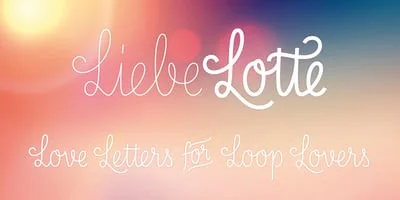
LiebeLotte Font
LiebeLotte Font is perfect for romantic German bakery branding, charming love letter designs, sweet Valentine's Day cards, tender wedding invitations, romantic European travel brochures, cozy cafe signage, heartfelt greeting cards, intimate boutique hotel materials, romantic poetry books, and loving family communications that require gentle warmth and endearing affection.
This font is exciting because it beautifully captures the tender affection and gentle love inherent in its German name with soft, embracing letterforms that convey warmth, intimacy, and heartfelt emotion like a loving whisper. LiebeLotte Font features delicate curves and caring proportions that embody the sweet tenderness and romantic charm essential for designs that need to express genuine love and emotional connection.
LiebeLotte Font family includes Regular, Bold, Light, Tender, Sweet, Romantic, Loving, and Gentle versions, plus heart symbols, romantic ornaments, loving flourishes, and affectionate design elements that enhance the endearing aesthetic and provide comprehensive solutions for romantic and emotional communication applications.
For romantic and heartfelt design projects, LiebeLotte Font delivers unmatched tenderness and emotional appeal. The font's loving letterforms and gentle character make it perfect for romantic brands, intimate services, and heartfelt communications seeking to express genuine affection, emotional warmth, and loving care. Its tender design appeals to audiences who value emotional connection and romantic expression. The character set includes loving alternates and romantic variations that enhance the emotional impact and heartfelt communication. Professional designers appreciate its ability to convey both genuine emotion and professional quality while maintaining excellent readability across romantic marketing, intimate branding, and heartfelt communications, making it essential for brands that want to express the tender love and gentle affection that creates meaningful emotional connections and communicates the caring warmth that defines authentic romantic expression and loving relationships.